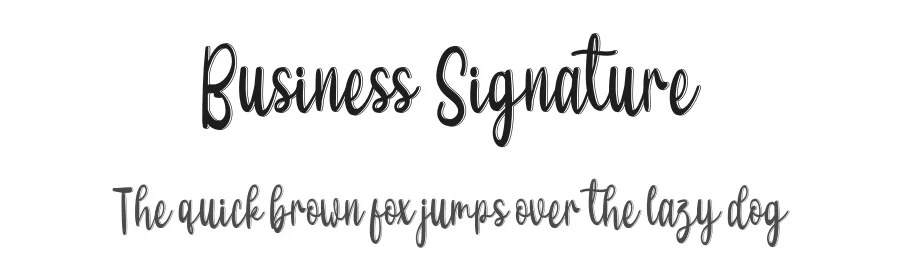
About Alliamartha Font
Alliamartha Specifications
| Font Family | Alliamartha |
| Full Name | Alliamartha |
| Glyph Count | 178 glyphs |
| PostScript Name | AlliamarthaRegular |
Alliamartha supports 185 languages.
Alliamartha Font is a script font that shines as a display or heading face. Pair it with a clean sans-serif or serif font for body text β the contrast creates a clear hierarchy while the two styles stay balanced and easy to read.